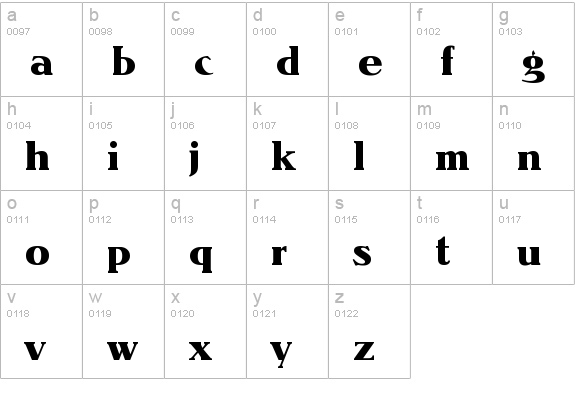
NevadaSerial-Xbold-Regular is the standard, neutral variant in the NevadaSerial typeface family \xE2\x80\x94 well suited to general body text, paragraphs, and standard typographic work.
NevadaSerial-Xbold-Regular is a striking and bold font that commands attention with its strong and impactful design. This versatile typeface exudes confidence and modernity, making it perfect for a wide range of projects that require a bold statement. Whether used for headlines, posters, branding, or any other design application, NevadaSerial-Xbold-Regular is sure to leave a lasting impression. The best part? NevadaSerial-Xbold-Regular is available for free download at FontsMarket.com. This means you can easily access this powerful font without any cost, allowing you to elevate your design projects without breaking the bank. Don't miss out on the opportunity to enrich your creative work with the distinctive style of NevadaSerial-Xbold-Regular. Download it today and start making a bold impact with your designs.